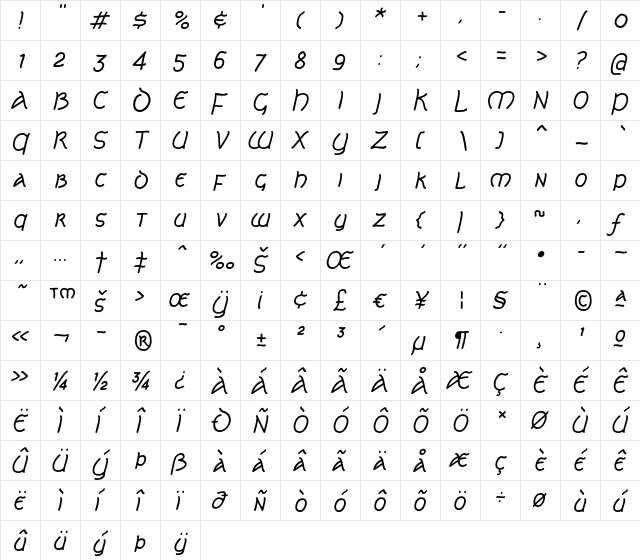
CelticLionAOE Italic
Design Context for CelticLionAOE Typeface
CelticLionAOE is a composed and adaptable typeface that performs quietly and consistently across a wide range of design contexts. The dynamic lean of this cut emphasises speed and emphasis in any layout.
Pro Tip: Try CelticLionAOE for annotation and caption copy alongside an upright companion — the contrast in angle creates a dynamic but ordered typographic system.